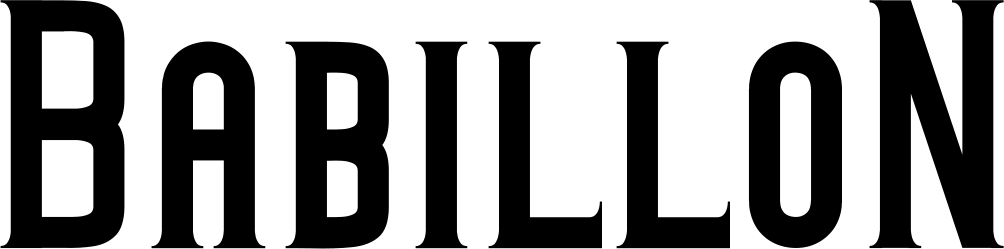
Babillon Font
Today we are introducing another camping & hiking font called Babillon which has a vintage and classy look. It can be used for any fantasy texts or headlines or as classic novel titles. As you can see this vintage T-shirt font only contains uppercase letters. Make sure to use this opportunity and hit the download button!